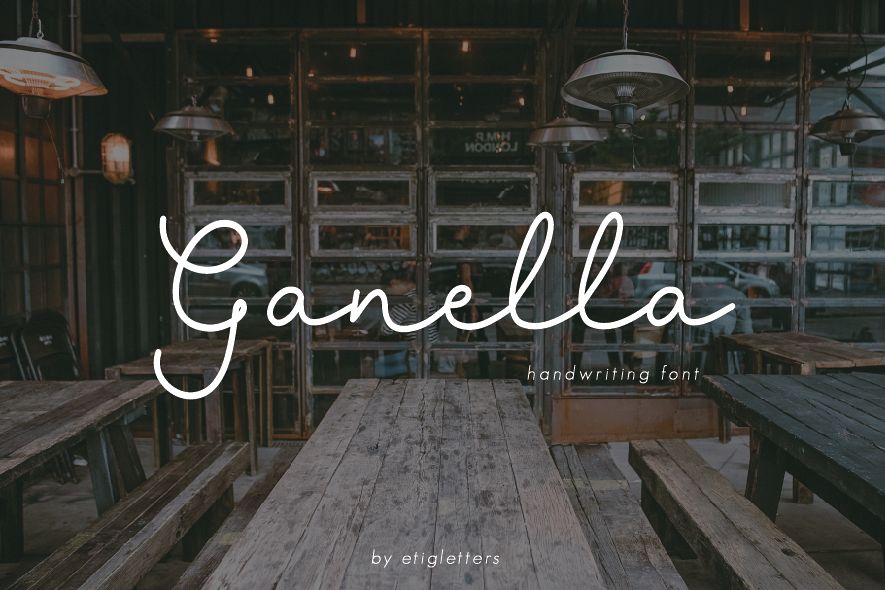
Ganella
Ganella is a handwriting font.
It can be used for wedding invitations, business card, poster design, t-shirt designs, magazine design, greetings cards, and much more.